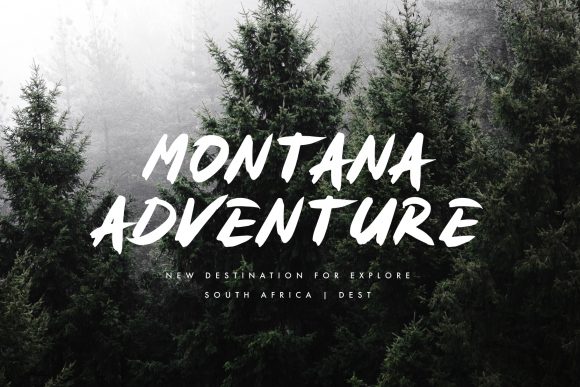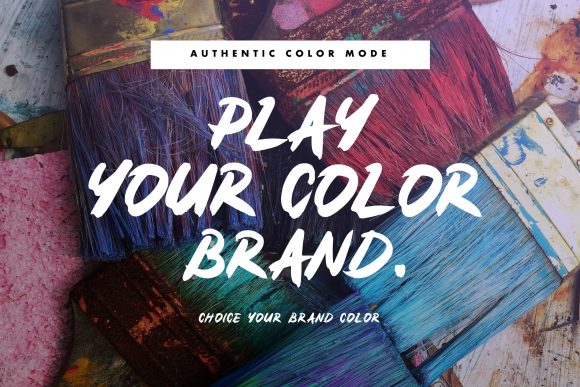
The Perfect Brush for Your Creative Masterpiece
Have you ever been on a camping trip and watched the sunset over a serene lake? The warmth of the fading light, the sound of the gentle breeze, and the tranquility of nature all come together to create an unforgettable experience. It’s moments like these that spark creativity and inspire us to bring new ideas to life. For designers, it’s about capturing that essence and conveying it through their work.
Enter the Aerstone Font, a handbrush font designed to transport your designs to the great outdoors. With its unique personality, Aerstone Font is perfect for events, branding, and any project that requires a touch of adventure. Its versatility and high-quality design make it an invaluable asset for designers looking to elevate their work to the next level.
Aerstone Font Key Features
- Unique Characteristics: This font features a unique blend of modern and vintage elements, with intricate details and subtle texture, making it perfect for designs that require a touch of sophistication and elegance.
Aerstone Font Review
I’ve had the chance to work with the Aerstone Font, and overall, it’s a solid choice for designers. Here are my thoughts:
- ✨ Elegant, modern aesthetic: Aerstone Font has a sleek, contemporary feel that’s perfect for luxury brands or high-end designs.
- ✨ Highly legible: The font is clear and easy to read, even at small sizes, making it a great choice for digital applications.
- ✨ Versatile: Aerstone Font comes in multiple weights, from light to bold, giving designers plenty of options for creating contrast and visual interest.
- ⚠️ Limited language support: Aerstone Font is primarily designed for English and might not be the best choice for projects that require extensive language support.
- ⚠️ Not ideal for body text: While Aerstone Font is great for headings and titles, it might be too ornate for body text, where legibility is key.
Overall, I think Aerstone Font is a great addition to any designer’s toolkit. It’s perfect for projects that require a touch of elegance and sophistication. However, it’s essential to be aware of its limitations and use it judiciously.
Tips for Getting the Most Out of Aerstone Font
For optimal results, use the Aerstone Font in a clean and simple design. Avoid using too many fonts or colors, as this can make your design look cluttered.
Experiment with different font sizes and styles to create visual hierarchy and emphasis.
The Aerstone Font is ideal for:
Business cards and letterheads
Marketing materials and brochures
Web design and digital marketing
Alternative Fonts to Aerstone
Monserrato is a modern sans-serif font, great for digital products and websites. It’s highly legible and works well in a variety of contexts. Montserrat is more geometric and clean than Aerstone, making it ideal for use in digital interfaces and titles. Aerstone has a more vintage and handwritten feel, whereas Montserrat is more contemporary and clean-cut.
Playfair Display is an elegant and luxurious serif font, perfect for adding sophistication to your designs. It’s ideal for use in titles, headings, and other high-impact areas where you want to create a sense of grandeur. Unlike Aerstone, which has a more casual feel, Playfair Display is highly ornate and perfect for formal or high-end designs.
What is the recommended font size and line height for optimal readability with the Aerstone Font?
For optimal readability, we recommend using the Aerstone Font at a minimum size of 12 points, with a line height of at least 1.5 times the font size. This will ensure clear and legible text, even at smaller sizes.